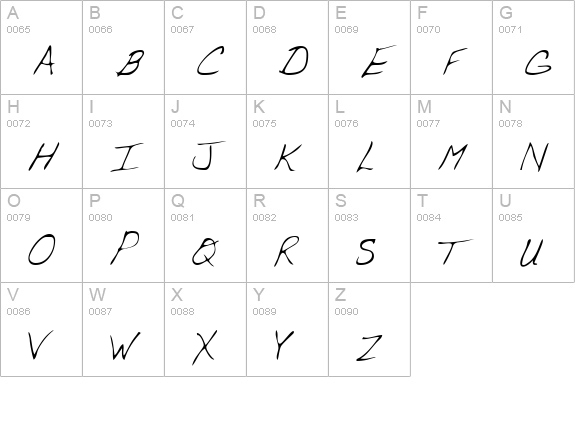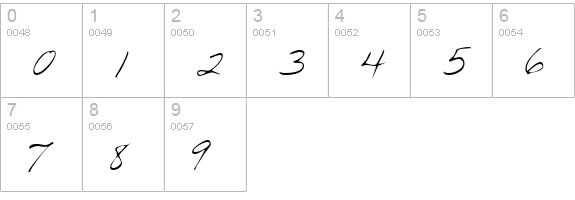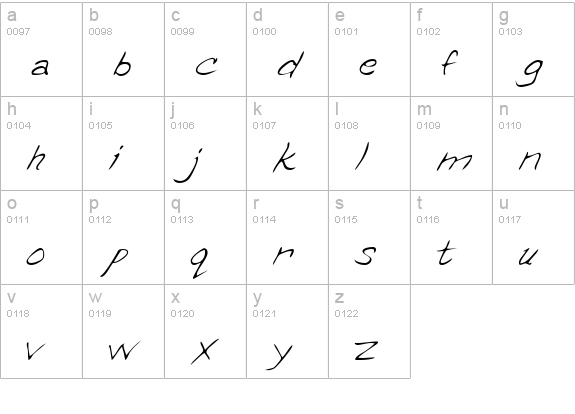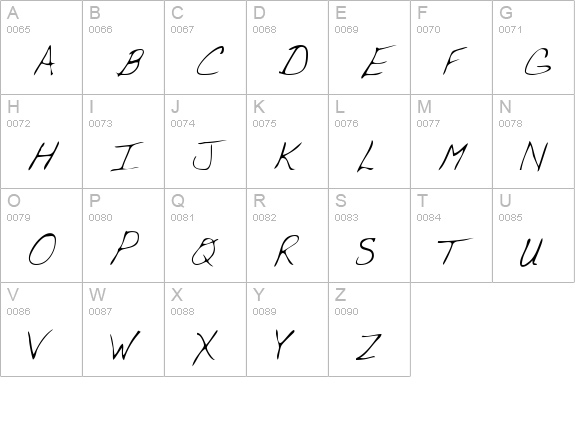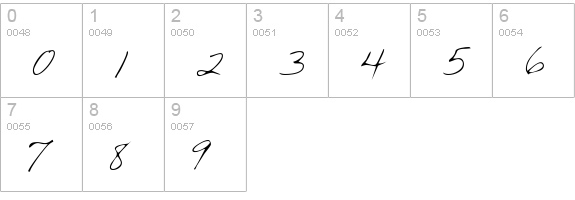
ErinsHand font is a charming and whimsical typeface that exudes a sense of warmth and friendliness. Its handwritten style adds a personal touch to any design project, making it perfect for invitations, greeting cards, and social media graphics. The flowing curves and unique letterforms of ErinsHand font capture the elegance of hand lettering with a modern twist. Best of all, ErinsHand font is available for free download at FontsMarket.com. Whether you're a professional designer or a DIY enthusiast, you can easily access this delightful font to elevate your creations. Embrace the beauty of handwritten typography with ErinsHand font and infuse your designs with creativity and personality.